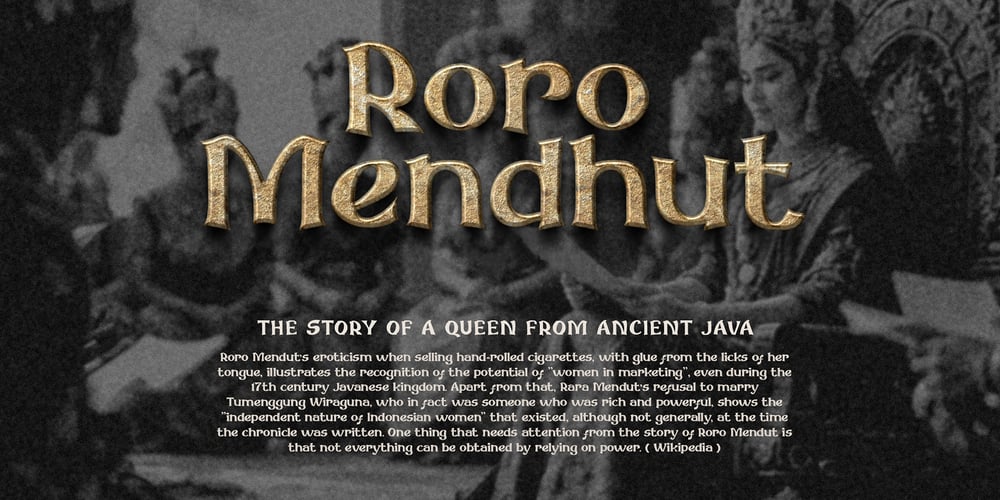
Roro Mendhut Font Family was designed by Yuniardi Wibowo and published by Sanskertype Studio. Roro Mendhut contains 1 styles and family package options. “Roro Mendut” is a modern display font inspired by the ancient beauty of Sanskrit letterforms, blended seamlessly with contemporary creative design. This font offers a perfect balance of flexibility and authenticity, making it an ideal choice for projects that require a unique and culturally rich aesthetic.The ideal choice for crafting retro-inspired designs from the 60s or 70s. This font features unique stylistic elements and swashes, perfect for enhancing your brand logo, posters, food and beverage packaging, bakery labels, or any project that calls for a distinctive vintage flair.FEATURES- Uppercase and Lowercase letters- Numbering and Punctuations- Multilingual Supports- Works on PC or Mac- Simple Installation- Support Adobe Illustrator, Adobe Photoshop, Adobe InDesign, also works on Microsoft Word